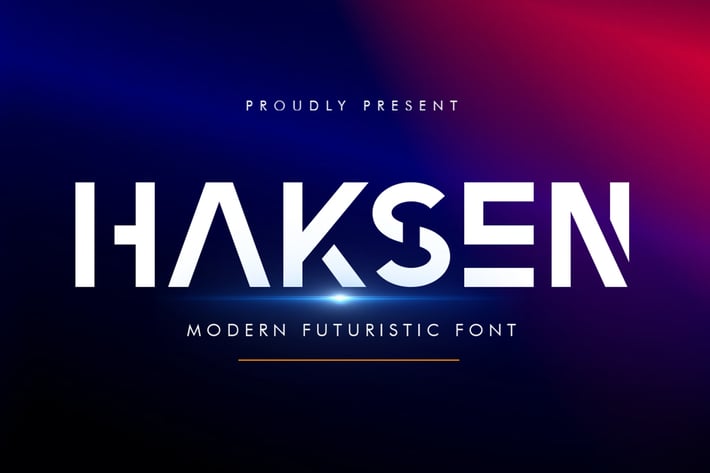
Haksen - Logo Font
Haksen is a sans based font with unique lowercase that will make your design looks futuristic and modern. You can use this font for any purpose, especially to make logotype.